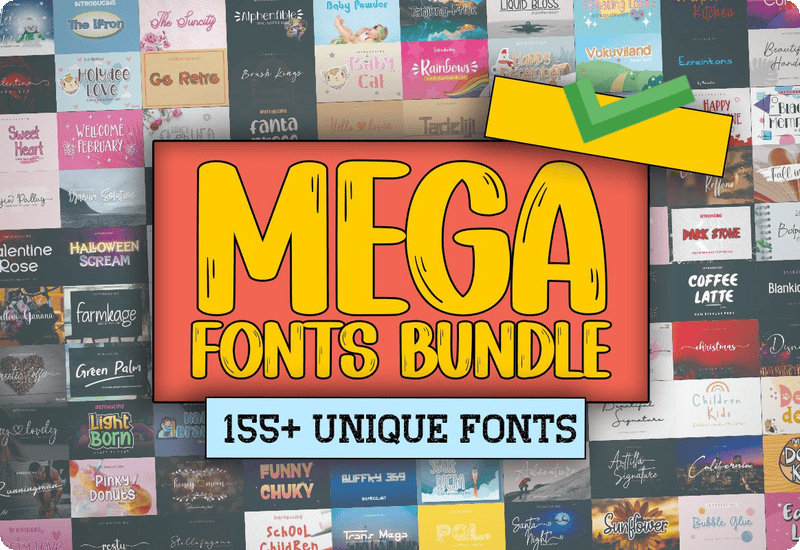
The Mega Fonts Bundle is a comprehensive collection of 158 premium fonts offered for free. This bundle includes a wide variety of font styles, ranging from elegant scripts to bold display fonts, and is designed to cater to all kinds of creative projects.
Diverse and Unique Font Collection
Discover an extraordinary assortment of 158 premium fonts in the Mega Fonts Bundle, perfect for every creative project. From elegant scripts to bold display fonts, this bundle offers a vast selection, including styles like Honey Bee Display Font and Autography Script.
Premium Fonts in this bundle:
- Home Alone Sans Serif Font
- Buffalor Flower Decorative Font
- Doggy Dog Decorative Font
- Honey Bee Display Font
- Bubble Glue Script & Handwritten Font
- Milky Baloon Font Display Font
- Mother Note Skript-Schriftarten Schriftart
- Autography Script & Handwritten Font
- Midley Script & Handwritten Font
- Curved Sans Serif Font
- Summer Barbeque Script & Handwritten Font
- Best Friend Skript-Schriftarten Schriftart
- Rinjani Script & Handwritten Font
- Light Born Display Font
- Happy Drawing Polices d’Affichage Police
- Professional Display Font
- Handmade Skript-Schriftarten Schriftart
- Santa Night Font Corsivi Font
- White Unicorn Script & Handwritten Font
- Chozy Mermaid Display-Schriftarten Schriftart
- Honey Moon Script & Handwritten Font
- Yogurt Display Font
- Coffee Night Fuentes Caligráficas Fuente
- Ekuador City Script & Handwritten Font
- Sweet Heart Script & Handwritten Font
- Pumpkin Night Decorative Font
- Sunday Vintage Fuentes Display Fuente
- Happy Banana Script & Handwritten Font
- Christmas Brand Script & Handwritten Font
- Summer House Display Font
- The House Display Font
- Moonlight Rotter Script & Handwritten Font
- Adventure Fuentes Caligráficas Fuente
- Wedding Script & Handwritten Font
- Black Memphis Display Font
- Summer Dream Script & Handwritten Font
- Trailer Display Font
- Lemon Kelly Display Font
- Happy January Polices Manuscrites Police
- Chicken Kitchen Sans-Serif-Schriftarten Schriftart
- Pumpkin Cute Script & Handwritten Font
- Sunday Monday Script & Handwritten Font
- Liquid Bloss Skript-Schriftarten Schriftart
- Sugar Baby Display Font
- Heyliana Script & Handwritten Font
- London Road Script Fonts Font
- Feminim Polices Manuscrites Police
- Amsterdam Rain Script & Handwritten Font
- Wedding is Coming Fuentes Caligráficas Fuente
- Halloween Scream Display-Schriftarten Schriftart
- Christmas Script & Handwritten Font
- Farmhouse Polices Manuscrites Police
- Khardasthan Signature Polices Manuscrites Police
- Djarum Solution Fuentes Caligráficas Fuente
- Sunflower Script & Handwritten Font
- Milk Shake Polices d’Affichage Police
- Fall in Love Polices Manuscrites Police
- Rustling Script & Handwritten Font
- Butterfly Script & Handwritten Font
- California Script & Handwritten Font
- Katty Love Font Corsivi Font
- Northern Paradise Script & Handwritten Font
- Dark Stone Display Font
- Bettermine Script & Handwritten Font
- Black&Spidol Czcionki Skryptowe Czcionka
- Ice Creamy Script & Handwritten Font
- Bolpoint Note Script & Handwritten Font
- Hey Lovely Script & Handwritten Font
- Pink House Polices Manuscrites Police
- Professional Italic Sans Serif Font
- Runningman Script & Handwritten Font
- The Monster Display Font
- Alphenfible Script & Handwritten Font
- Pink Family Display Font
- Go Retro Display-Schriftarten Schriftart
- Christmas December Polices Manuscrites Police
- The Signatura Polices Manuscrites Police
- Riujin Palluy Czcionki Skryptowe Czcionka
- Red Thread Polices d’Affichage Police
- Minimalist Sans-Serif-Schriftarten Schriftart
- Ramdani Signature Script & Handwritten Font
- Farmkage Skript-Schriftarten Schriftart
- Beautiful Signature Script & Handwritten Font
- Nanci Pinio Fuentes Sans Serif Fuente
- Happy December Polices d’Affichage Police
- Dreamland Polices Manuscrites Police
- Happy Valentine Polices Manuscrites Police
- Baby Powder Display Font
- Handmade Signature Polices Manuscrites Police
- Vlogger Polices Sans Sérif Police
- Hello Mother Polices Manuscrites Police
- Baby Cute Polices d’Affichage Police
- Tessla Sans Serif Font
- Kasih Bunda Fuentes Caligráficas Fuente
- Lovea Heart Polices Manuscrites Police
- Coffee Latte Polices d’Affichage Police
- Poneglyph Polices d’Affichage Police
- Over 8 Bit Polices d’Affichage Police
- Youth Lord Letter Polices Manuscrites Police
- Metaverse Sans Serif Font
- Trans Mega Polices d’Affichage Police
- Vukuviland Fuentes Display Fuente
- Jasmine Polices Manuscrites Police
- Buffalor Polices Sans Sérif Police
- Easter Love Polices Manuscrites Police
- Green Palm Polices Manuscrites Police
- Beautiful Handmade Polices Manuscrites Police
- Anttilla Signature Polices Manuscrites Police
- Stellofagone Skript-Schriftarten Schriftart
- Valentine Rose Polices Sans Sérif Police
- Sweet Dream Polices Manuscrites Police
- Romantic Sweety Script & Handwritten Font
- Wellcome February Polices d’Affichage Police
- Summer Love Script & Handwritten Font
- Betty Pansteenly Polices Manuscrites Police
- Flower of Love Polices Manuscrites Police
- Tanjung Priuk Sans Serif Font
- School Children Script & Handwritten Font
- The Suncity Polices Manuscrites Police
- Buffky 359 Fuentes Display Fuente
- Children Kids Polices Manuscrites Police
- Donut Kids Polices d’Affichage Police
- Chating Love Skript-Schriftarten Schriftart
- Romantic Coffee Polices Manuscrites Police
- Brush Kings Polices Manuscrites Police
- Blankid Black Sans-Serif-Schriftarten Schriftart
- Happy Summer Script & Handwritten Font
- Fuji Display Font
- Esseintona Polices d’Affichage Police
- Hello Lovea Polices Manuscrites Police
- Fanta Press Polices d’Affichage Police
- Rainbows Polices Manuscrites Police
- The Laron Fuentes Caligráficas Fuente
- Mono Grammers Polices Manuscrites Police
- Autumn Flower Polices Manuscrites Police
- Panama Brush Script & Handwritten Font
- Christmas Reffano Polices Manuscrites Police
- The Bones Polices d’Affichage Police
- Restu Fuentes Caligráficas Fuente
- Winter Snowman Polices Manuscrites Police
- White Ice Polices d’Affichage Police
- The Rock Polices d’Affichage Police
- Tadeliji Fuentes Display Fuente
- Sweet Home Display-Schriftarten Schriftart
- Baby Trees Skript-Schriftarten Schriftart
- Buffalor Polices Sans Sérif Police
- Valentina Script & Handwritten Font
- Funny Chuky Polices d’Affichage Police
- Flowerhy Polices Manuscrites Police
- Sublime Polices Manuscrites Police
- Romantically Alpha Polices Manuscrites Police
- Happy Valentine Polices Manuscrites Police
- The Passion Sans Serif Font
- Holydee Love Polices d’Affichage Police
- Pinky Donuts Display Font
- Simple Love Polices Manuscrites Police
- Baby Cat Polices d’Affichage Police
- Baginda Polices Manuscrites Police
Each font is meticulously crafted to enhance your designs, whether you’re creating logos, invitations, or social media graphics. Embrace the variety and find the perfect match for your artistic vision.